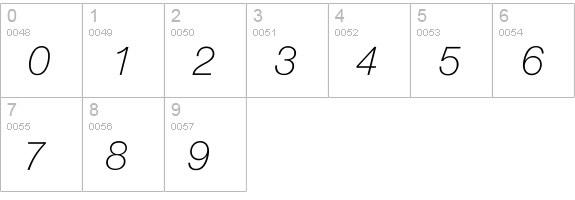
Iolnova Light is a refined, elegant variant in the Iolnova typeface family \xE2\x80\x94 well suited to elegant body text, refined sub-headings, and luxury branding.
Iolnova Light font is a stunning and elegant typeface that effortlessly combines modern aesthetics with a touch of sophistication. Crafted with meticulous attention to detail, this font is perfect for any creative project that requires a clean and refined look. With its delicate and slender letterforms, Iolnova Light font exudes an air of grace and subtlety, making it ideal for designs that aim to convey a sense of elegance and professionalism. Whether you're designing a logo, creating a magazine layout, or crafting a wedding invitation, this font will add a touch of sophistication to your work. What sets Iolnova Light font apart is not only its exceptional design, but also the fact that it is available for free download at FontsMarket.com. This means that you can use this stunning font in your projects without any cost or restrictions. It's a valuable resource for designers, creatives, and anyone who appreciates high-quality typography. The versatility of Iolnova Light font is another reason why it stands out among other fonts. Its clean and legible letterforms make it suitable for a wide range of applications, from digital designs to print materials. It is also available in various formats, ensuring compatibility with different design software and platforms. Whether you're a professional designer or a hobbyist, Iolnova Light font offers a unique and beautiful option for your creative endeavors. Its timeless elegance and freely available download make it a must-have for any typography collection. So why wait? Enhance your designs and elevate your projects with the exquisite Iolnova Light font, now available for free at FontsMarket.com.